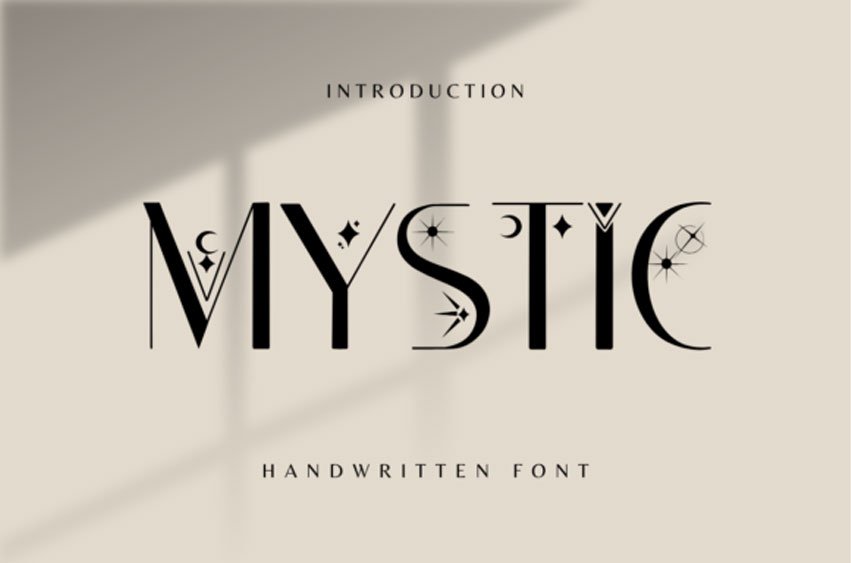
Mystic Font
Mystic Font is a decorative font with stars, moons, and other magical symbols around each letter.
It’s perfect for adding a touch of enchantment to your text.